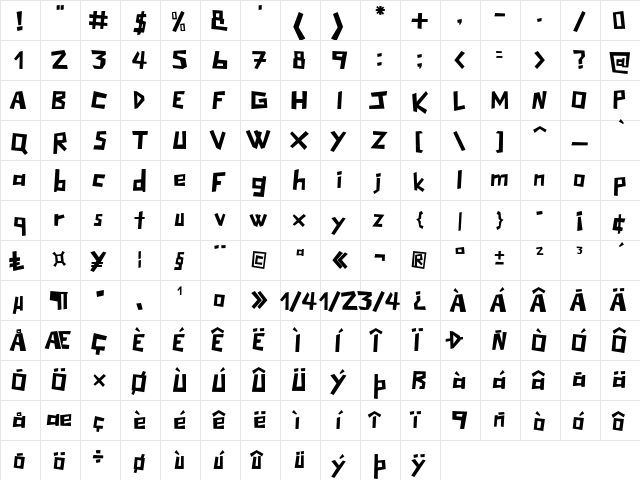
Muscovy Bold
Design Context for Muscovy Typeface
Muscovy is a composed and adaptable typeface that performs quietly and consistently across a wide range of design contexts. The heavy weight commands attention and anchors typographic hierarchies.
Pro Tip: Use Muscovy in both headline and body roles to test its range before committing to a single application.